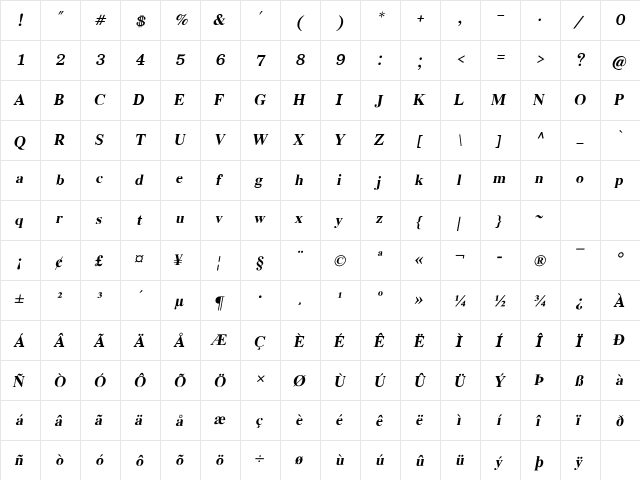
EucrosiaUPC Bold Italic
Design Context for EucrosiaUPC Typeface
EucrosiaUPC takes a measured approach to typography — its balanced proportions and neutral character make it a reliable workhorse for both digital and print work. The slanted form adds forward momentum and visual energy. The heavy weight commands attention and anchors typographic hierarchies.
Pro Tip: Try EucrosiaUPC for annotation and caption copy alongside an upright companion — the contrast in angle creates a dynamic but ordered typographic system.